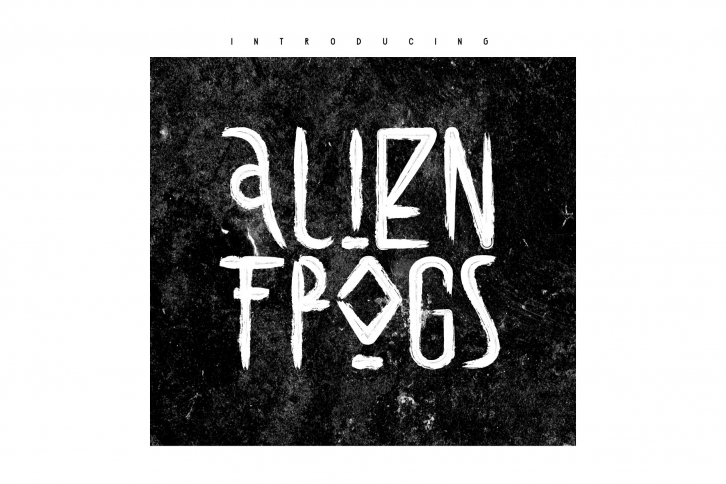
Give your designs an authentic brush handcrafted fell. “Alien Frogs Typeface†is perfeccly suited to stationery, poster, product packaging, album cover, movie poster & much more